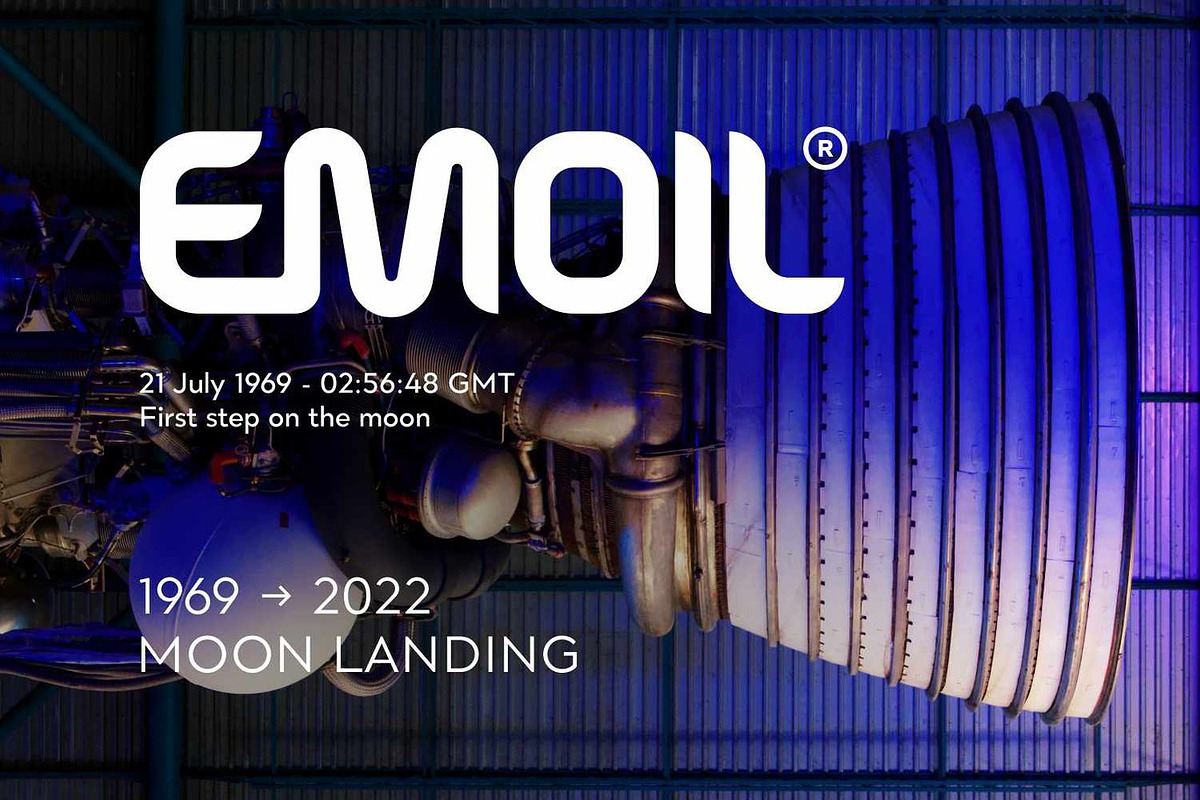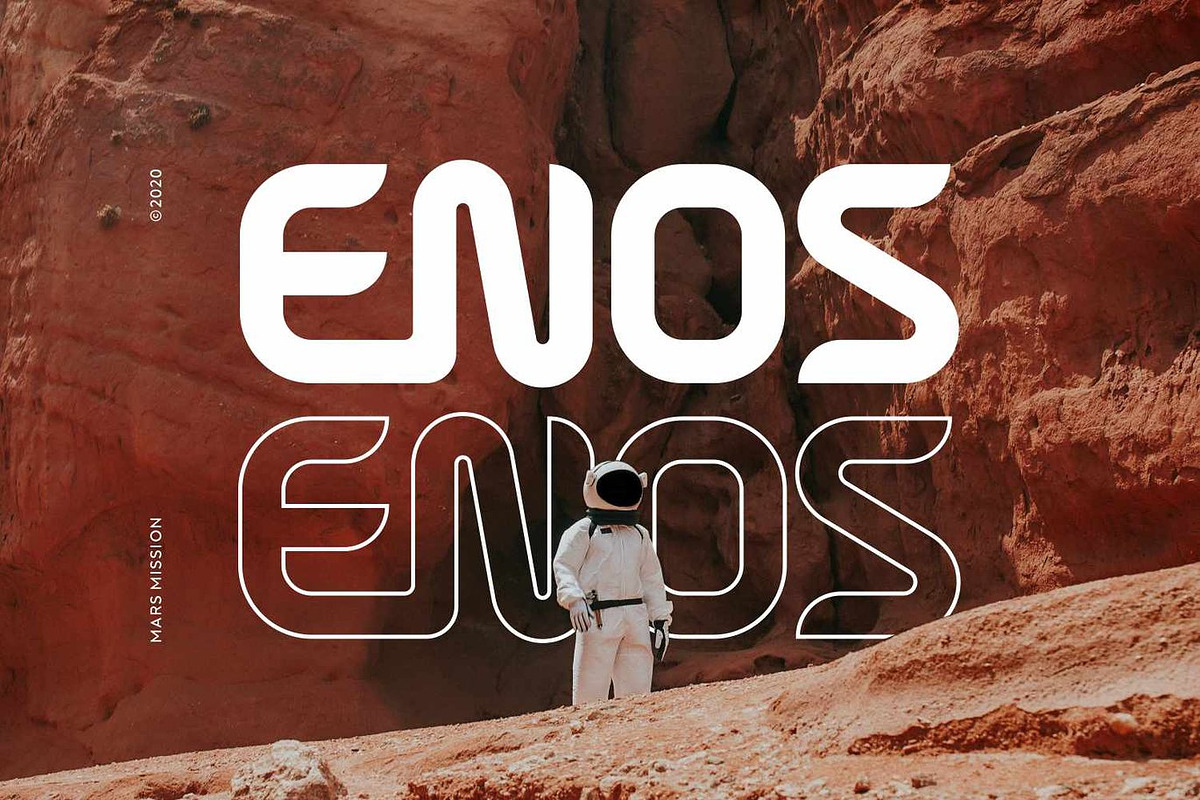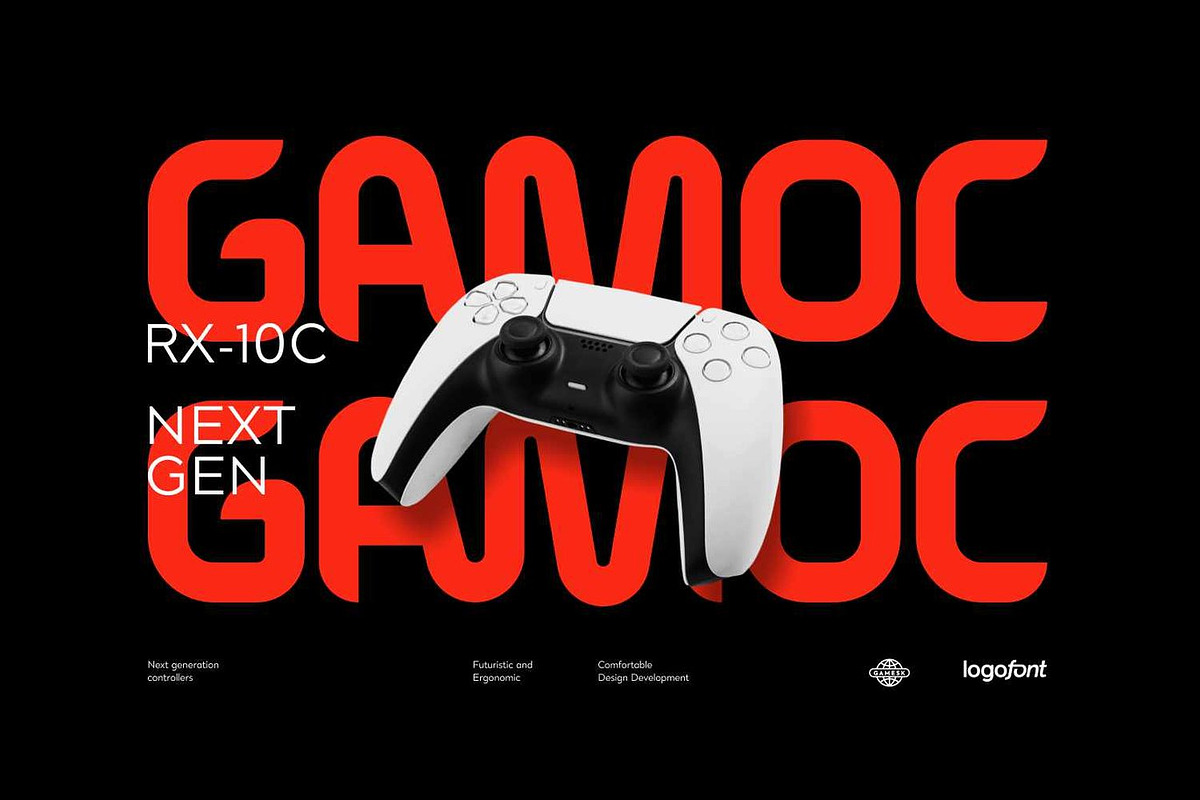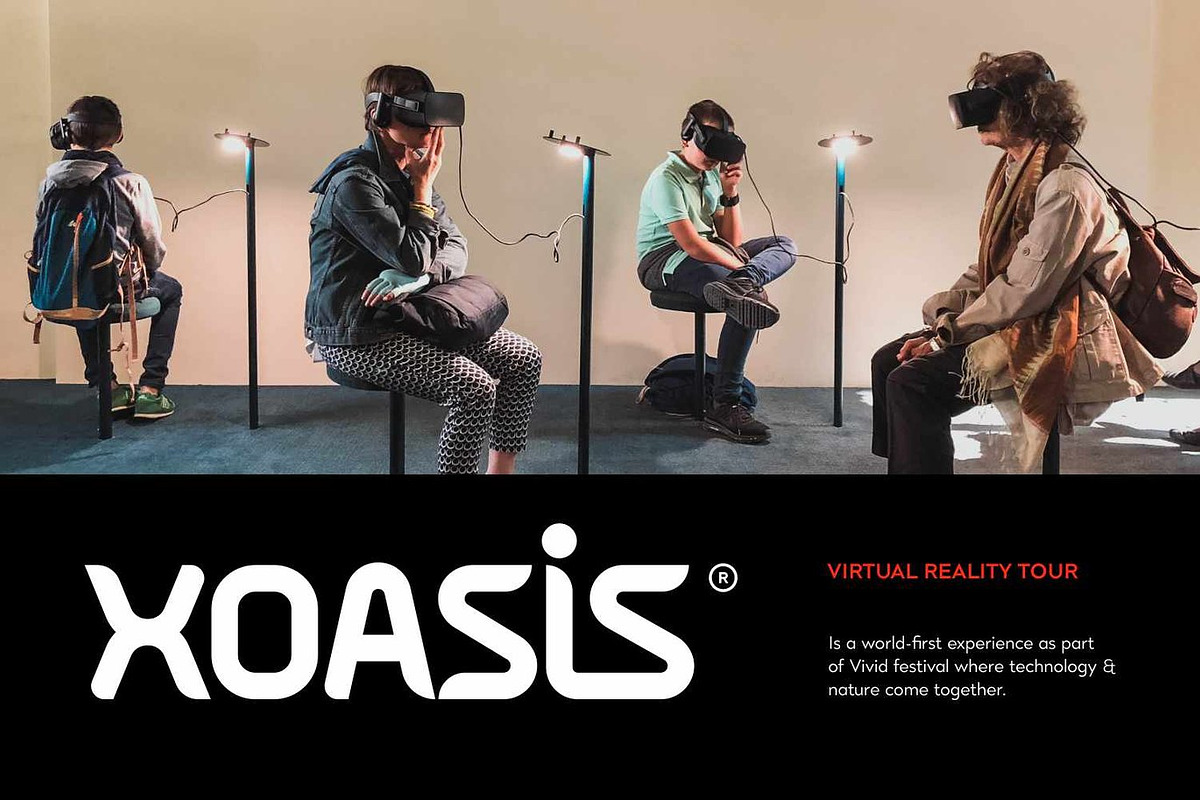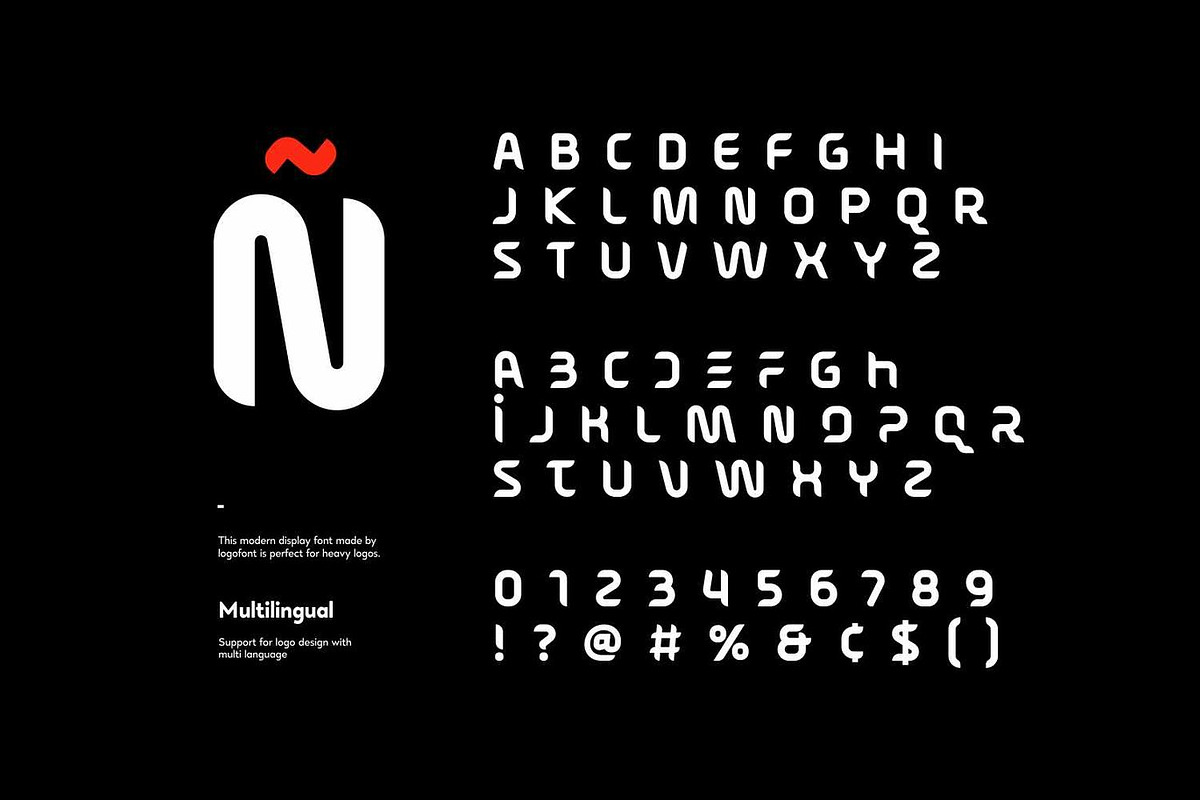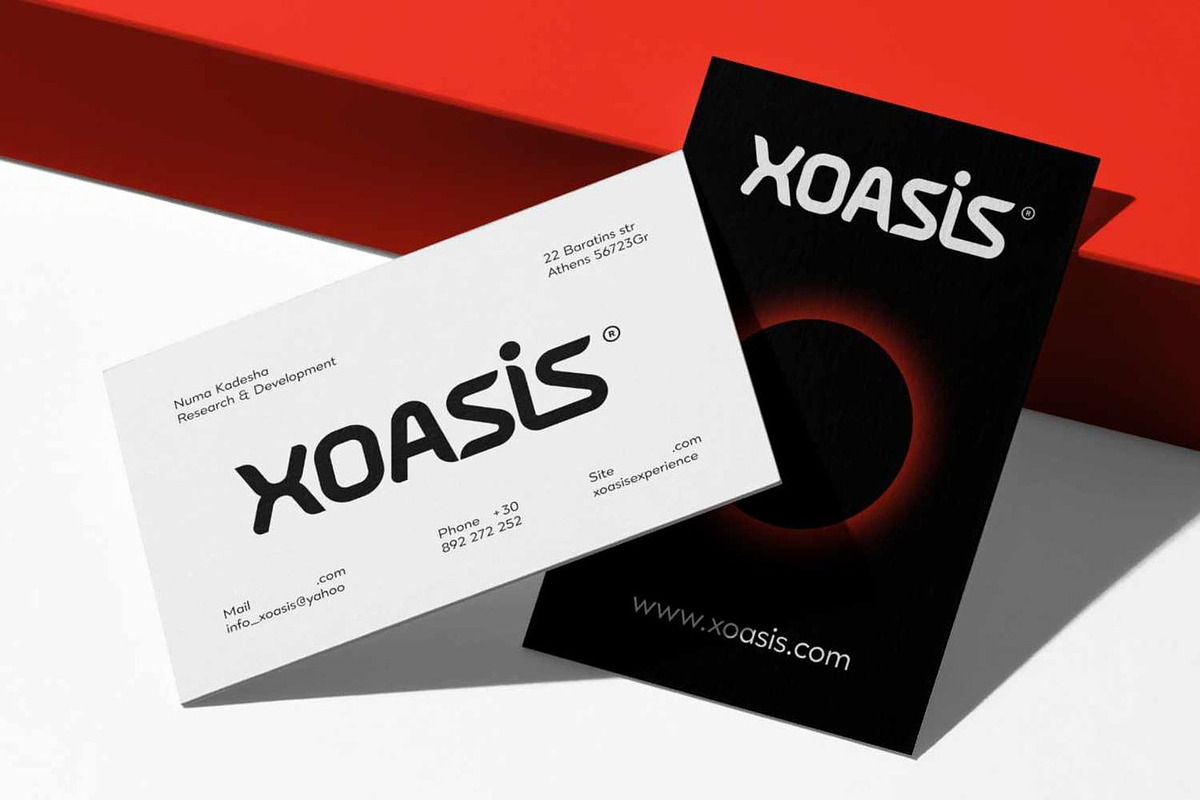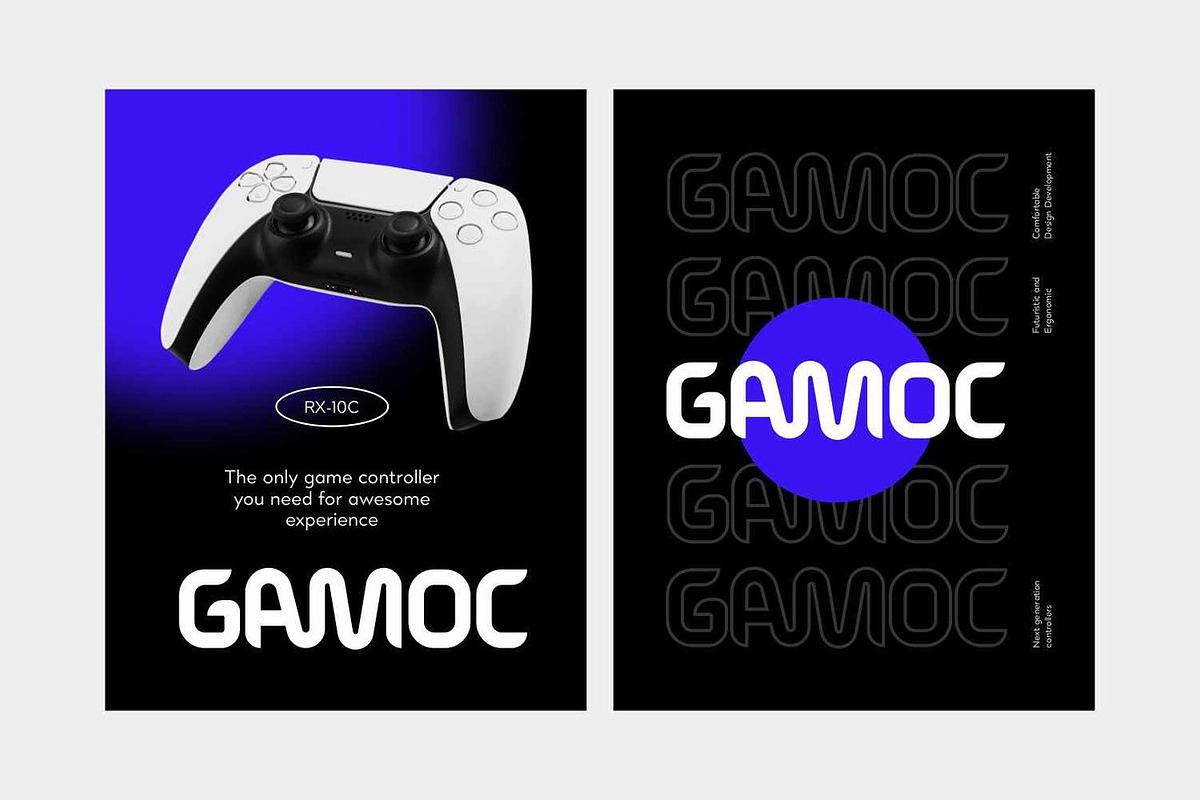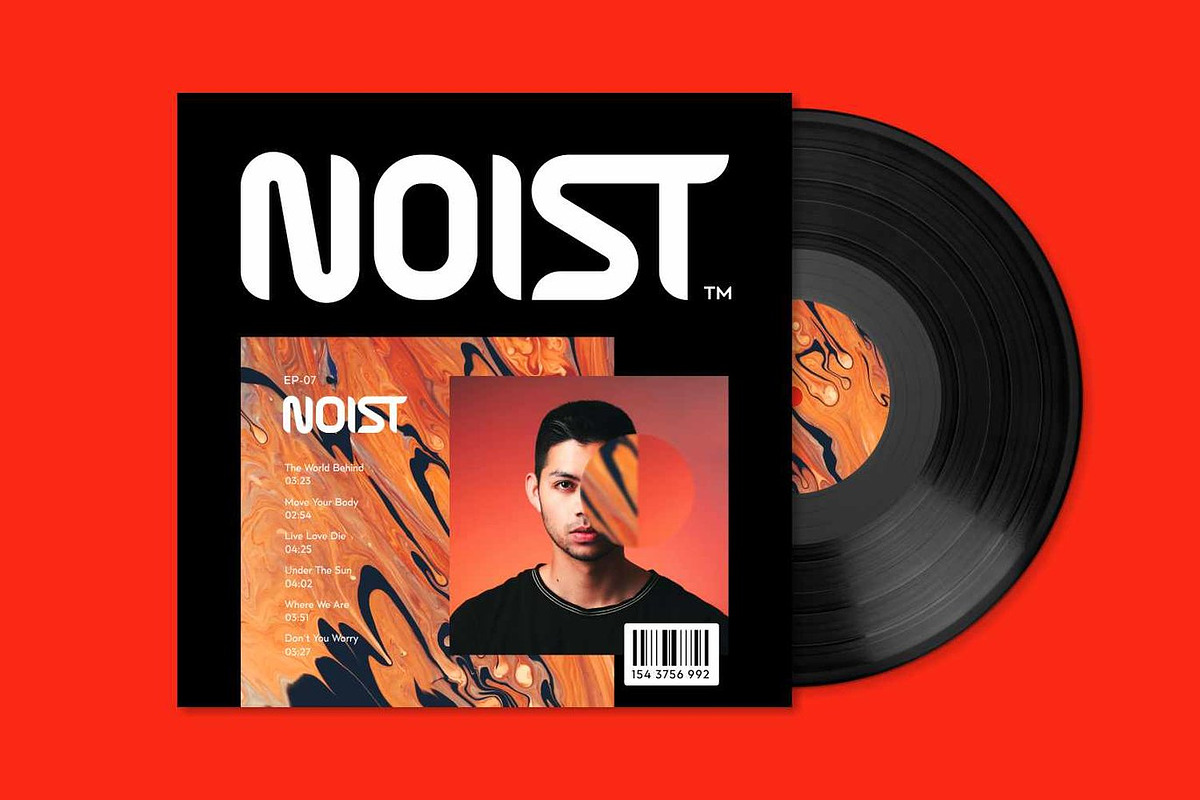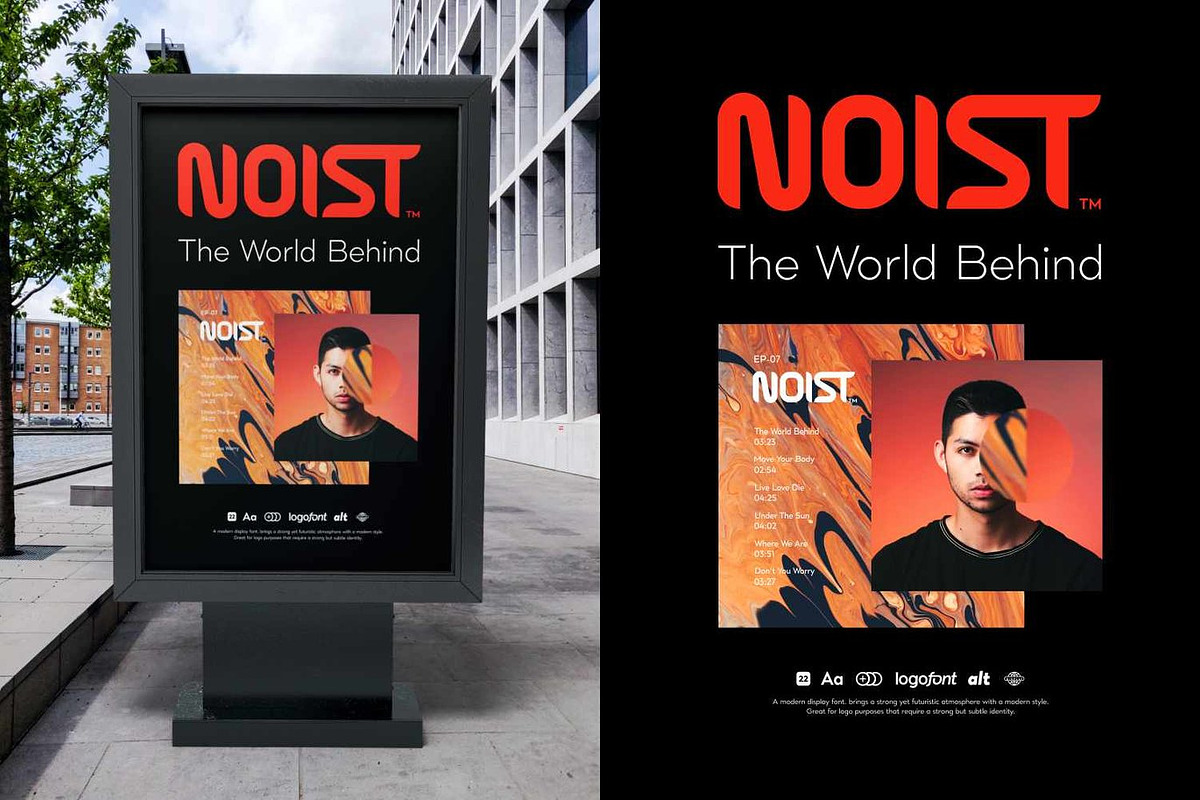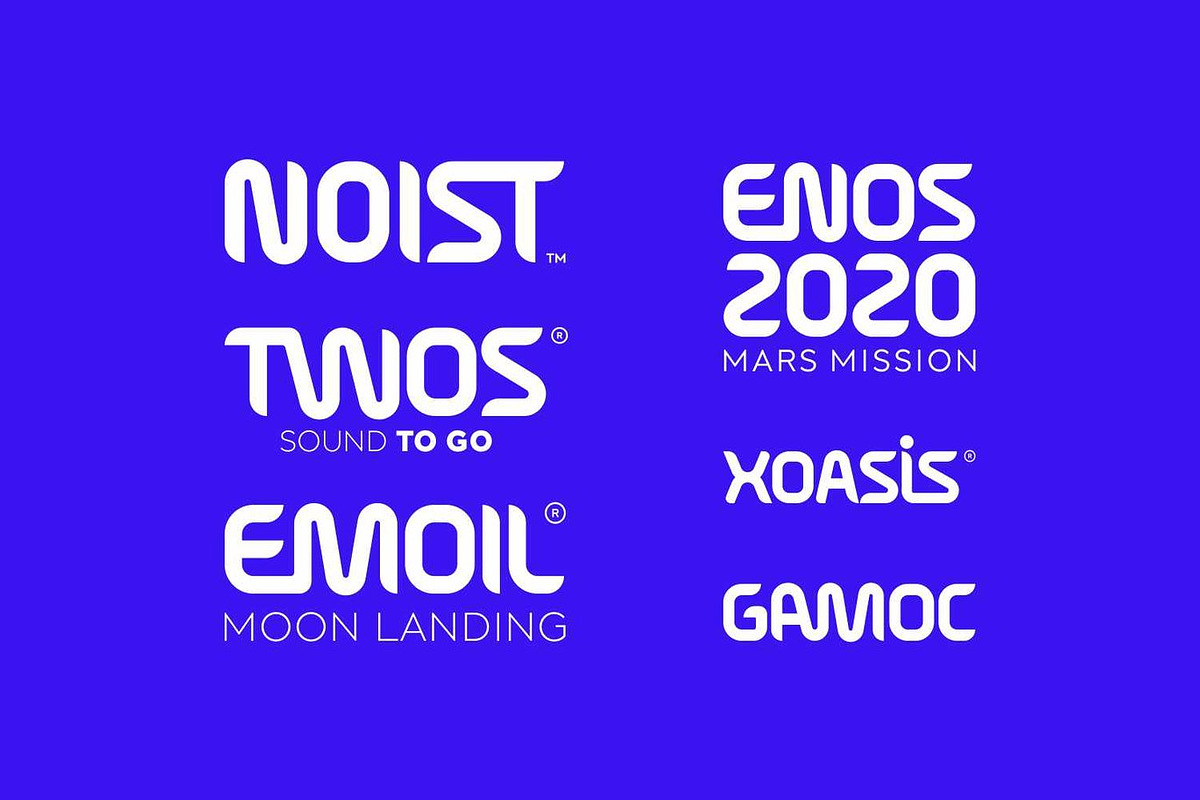
Nexura - Futuristic Font
Nexura is a future-forward sans serif typeface designed to capture the sleek precision and boundless possibilities of tomorrow's visual language. Clean geometric structures, refined letterforms, and calculated proportions create a font that feels both technologically advanced and unmistakably human. Inspired by concepts of space exploration, cutting-edge technology, and forward-thinking design, Nexura brings a confident, contemporary voice to projects that demand innovation without sacrificing clarity.
Where it excels:
Technology branding and products: Software companies, hardware manufacturers, tech startups, AI platforms, and digital service providers seeking modern, trustworthy identities that communicate innovation and expertise.
Gaming and entertainment: Video game interfaces, sci-fi themed projects, esports branding, streaming platforms, and interactive media where futuristic aesthetics enhance immersive experiences.
Space and science communication: Aerospace companies, research institutions, science museums, astronomical projects, and educational content requiring authoritative yet accessible typography.
Product design and packaging: Electronics, wearables, smart devices, and tech-forward consumer goods where packaging must signal innovation and premium quality.
Digital interfaces: Websites, mobile applications, dashboard designs, and user experiences where legibility across devices combines with contemporary visual appeal.
Editorial and marketing: Tech publications, forward-looking magazines, corporate reports, campaign materials, and promotional content targeting innovation-focused audiences.
Standout features:
Uppercase and lowercase with geometric precision balanced by subtle humanist touches, ensuring readability while maintaining futuristic character.
Symbols and punctuation engineered to match the technological aesthetic, creating cohesive compositions across complex technical and creative applications.
Numerals designed with tabular and proportional options, perfect for data visualization, UI elements, technical specifications, and pricing displays.
OpenType features including stylistic alternates that shift from conservative tech professionalism to bold futuristic expression, enabling customizable brand voices.
Extensive ligature collection that refines character interactions and adds sophistication to headlines, logos, and display typography.
Multilingual support ensuring Nexura's forward-thinking voice translates seamlessly across global markets and diverse language systems.
Choose Nexura when your project demands a typeface that looks toward the future while remaining grounded in exceptional functionality. Perfect for product logos, technology branding, game design, space concepts, posters, headlines, web interfaces, magazines, packaging, and stationery, this sans serif delivers contemporary sophistication with visionary appeal.